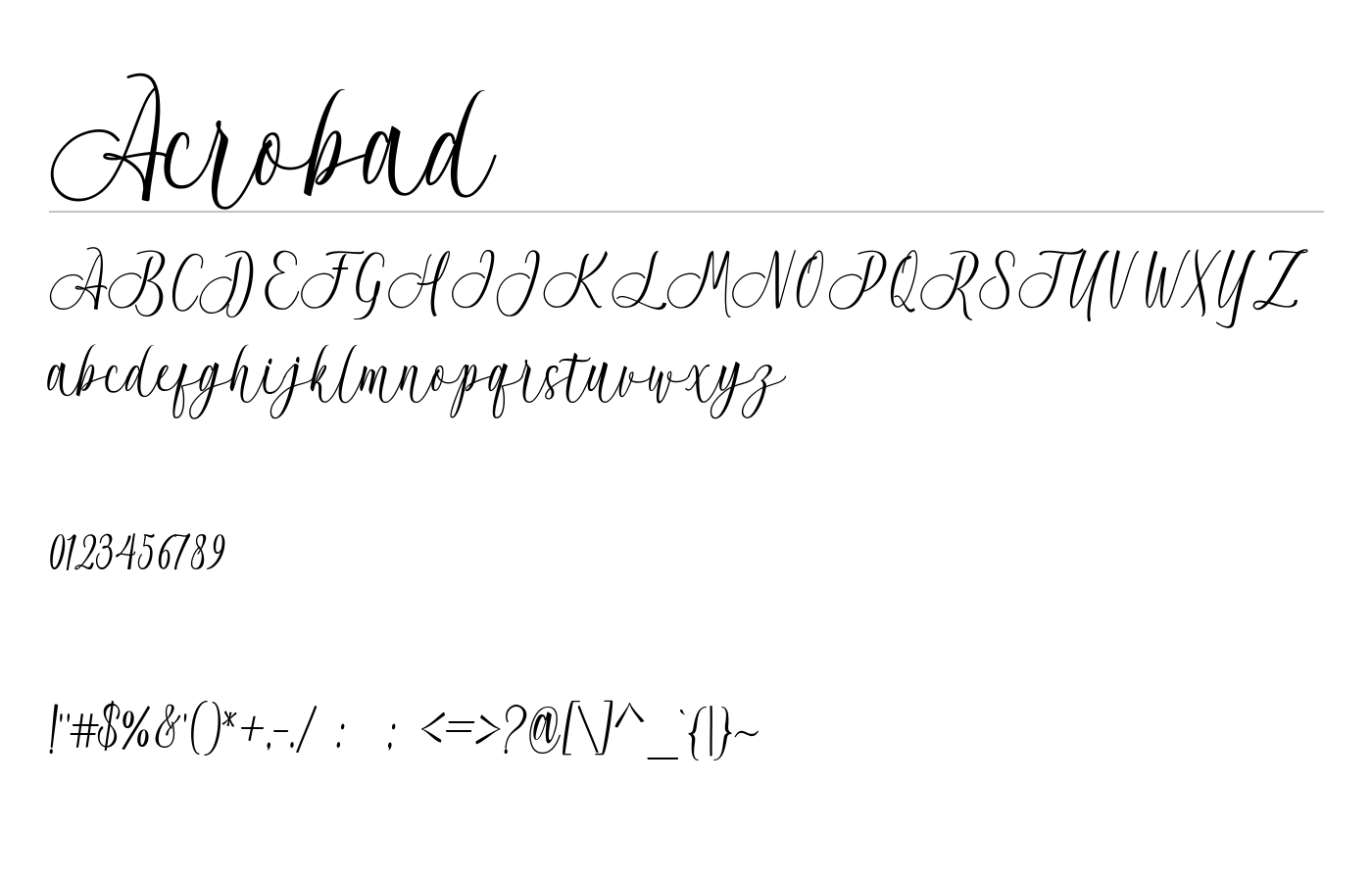
Acrobad is an elegant script font featuring delicate, flowing letterforms with a light weight and a high x-height that enhances readability. Its thin strokes and graceful curves create a sophisticated, handwritten feel, making it perfect for invitations, branding, and any design needing a touch of refined, artistic charm. This font works best in large sizes for headlines or logos where its intricate details can truly shine.
Acrobad Font